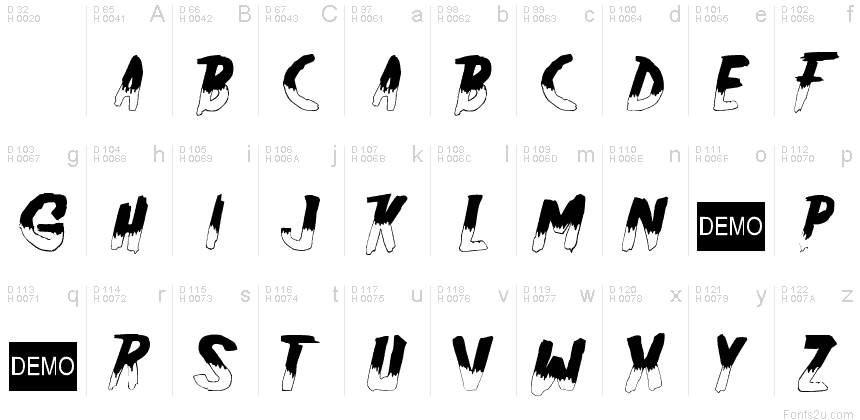
Friday13 bloody Demo
Friday 13 Bloody font by Thomas W. Otto is a free decorative display typeface that looks like it’s been hacked out with a brush and left to drip. Thick black strokes bleed into ragged white tips, giving every word a wet, splattered, fresh-from-the-scene energy that screams slasher flick and grindhouse posters. The slightly tilted letters feel rushed and panicked, as if they were scrawled in a hurry on a rain‑soaked wall.
Using Friday 13 Bloody, horror titles, Halloween flyers, haunted house signage, game logos, and thriller book covers instantly gain a gritty, cinematic edge. This free font also works well for escape room branding and spooky party invitations where you want maximum drama with minimal effort. Set it large, keep line lengths short, and pair it with a clean, narrow sans serif for body text so the wild drips and streaks stay loud and legible.